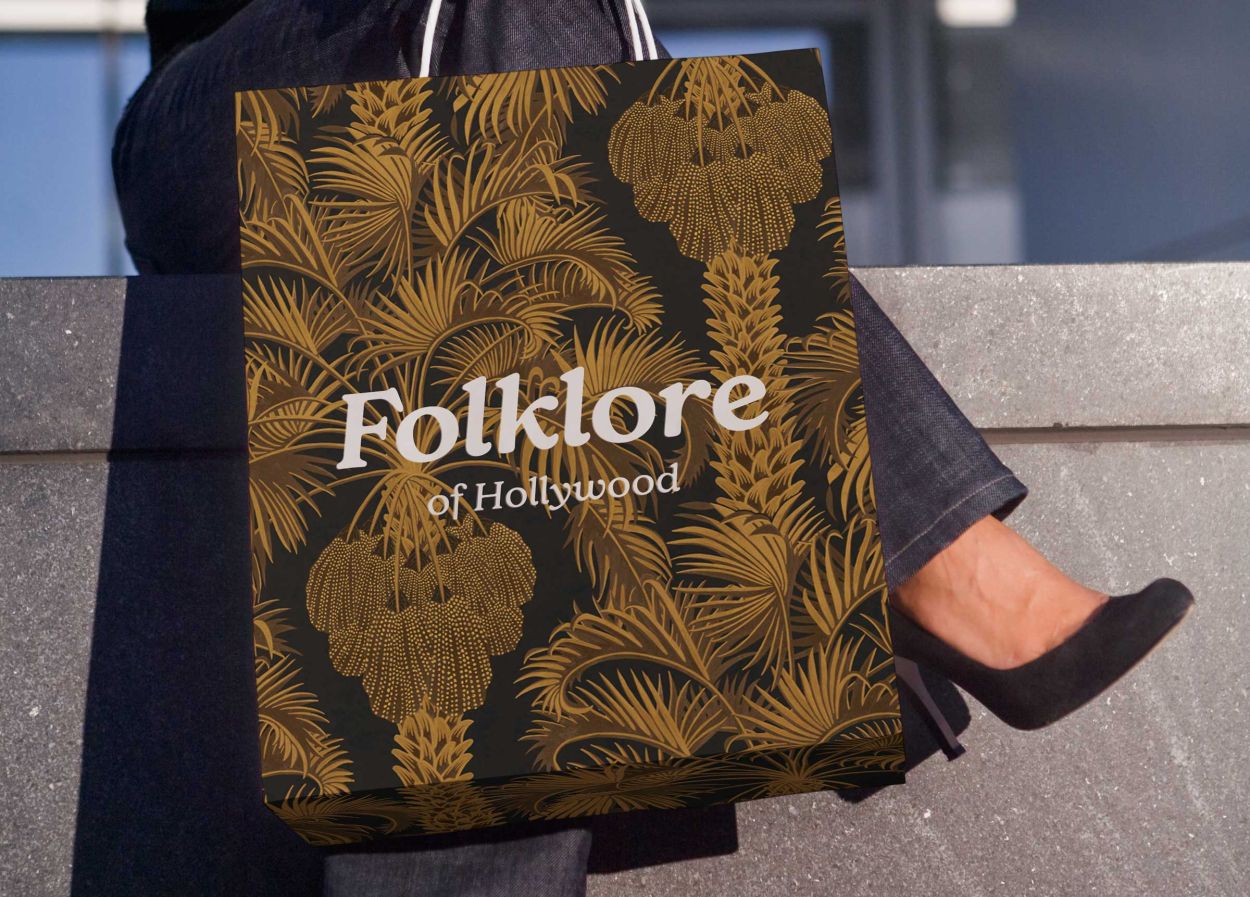
New Spirit Italic Font | Windsor Revival Typeface
New Spirit
New Spirit is a warm, expressive serif font family and a modern revival of Windsor, the Stephenson Blake typeface first released in 1905. Designed for contemporary brand typography, editorial design, packaging and display use, the family includes Roman, Italic, Condensed and Compressed styles.
Like a half-remembered dream—entirely familiar, sort of comforting, but which can’t be pinpointed to a particular time or place — New Spirit is both nostalgic and entirely enigmatic.
New Spirit is a revival of Windsor, a typeface release in 1905 by Stephenson, Blake & Co. The rework finally does Windsor justice across a thoroughly designed and useful range of weights; cementing its place as a 21st century icon, not just a curious relic of the 20th. It’s an Arcadian typeface, by which I mean that it is from an artistic vision of stability, abundance and harmony with nature. This sense of the organic, homemade and untainted by industry brings an undeniable romance, tempered by its traditional aspects in nods to more conservative Oldstyle serif typefaces.